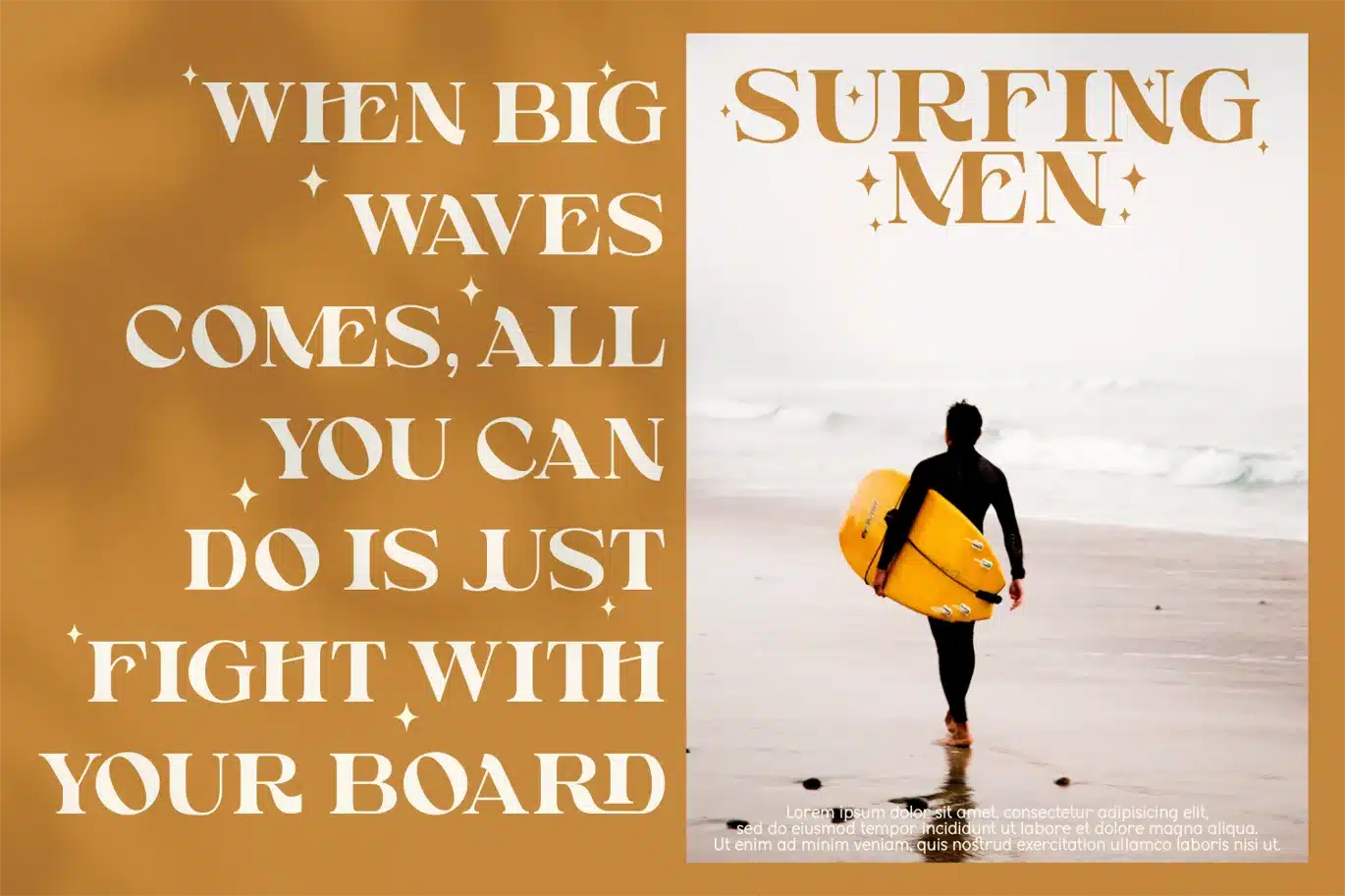
Reynord Font
I'm present to you, a modern serif typeface, called Reynord!
Reynord is an exquisite and modern serif font with an impeccable look. Use it to create outstanding branding projects, logos, business cards, invitation cards, and other creative designs.
- Lowercase and Uppercase
- Extra Ligatures
- Accented characters
- Multiple Languages Supported